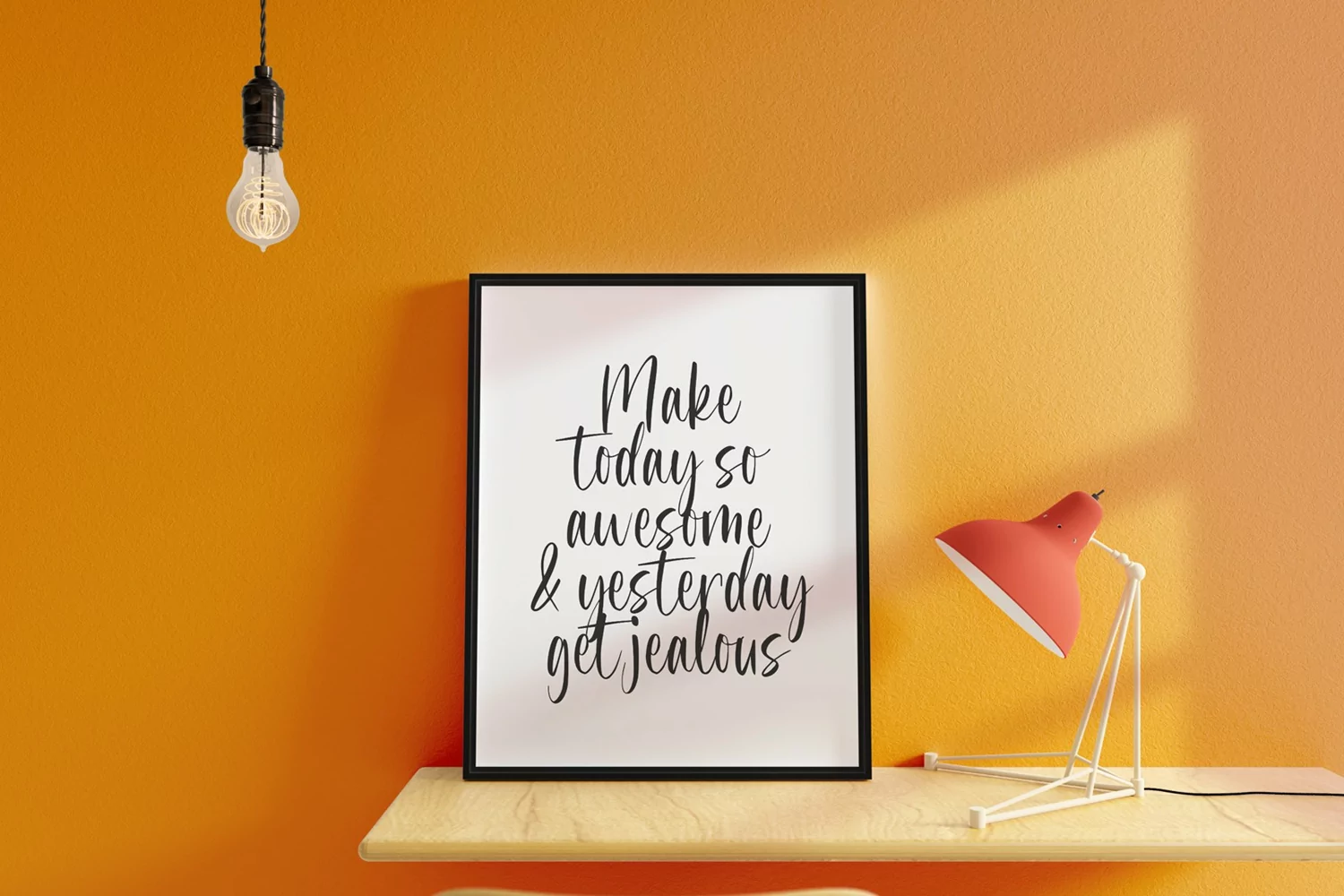
Scharf is a handwritten style with love. Modern brush script font based on the expression of the hand writing style that flows natural, organic, freely and friendly.